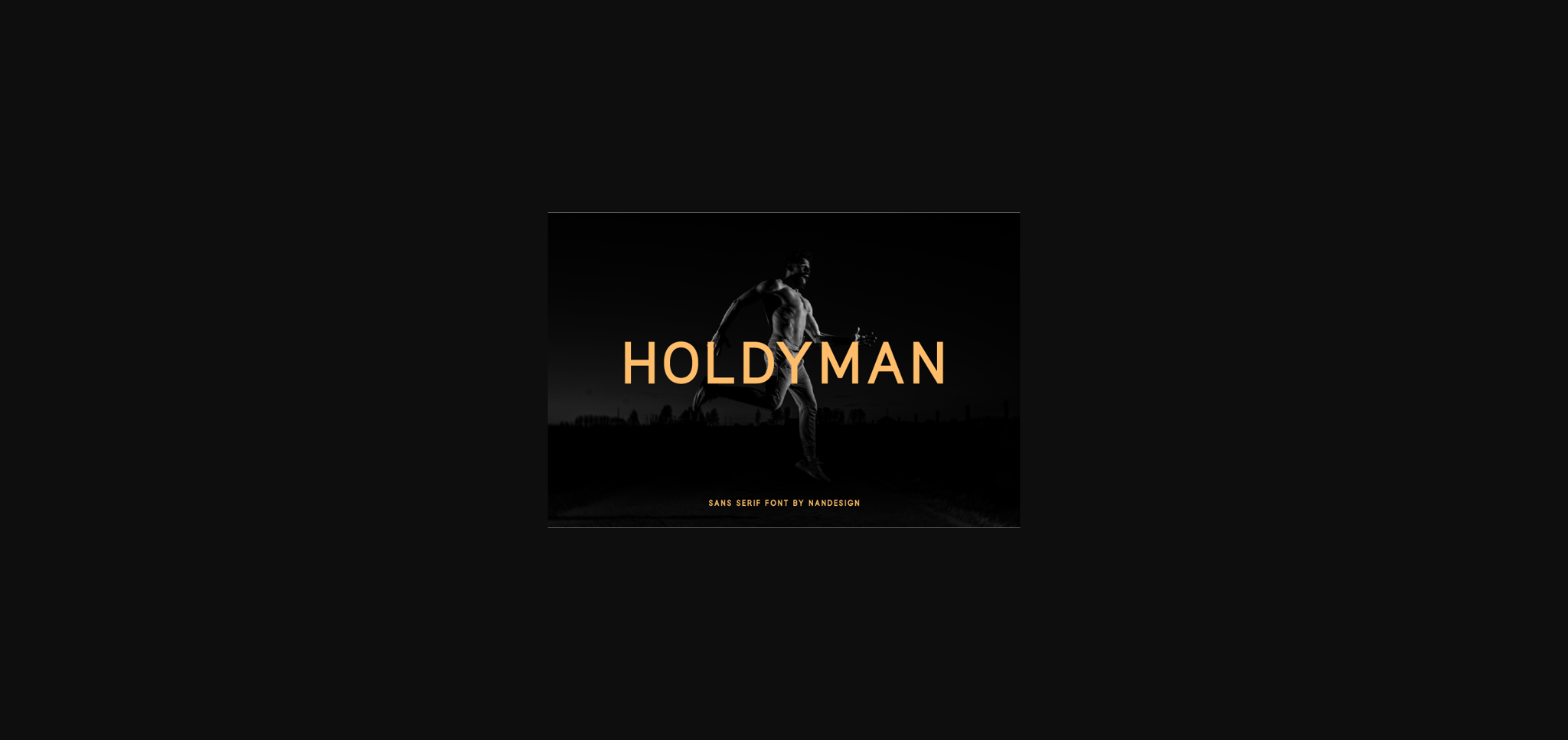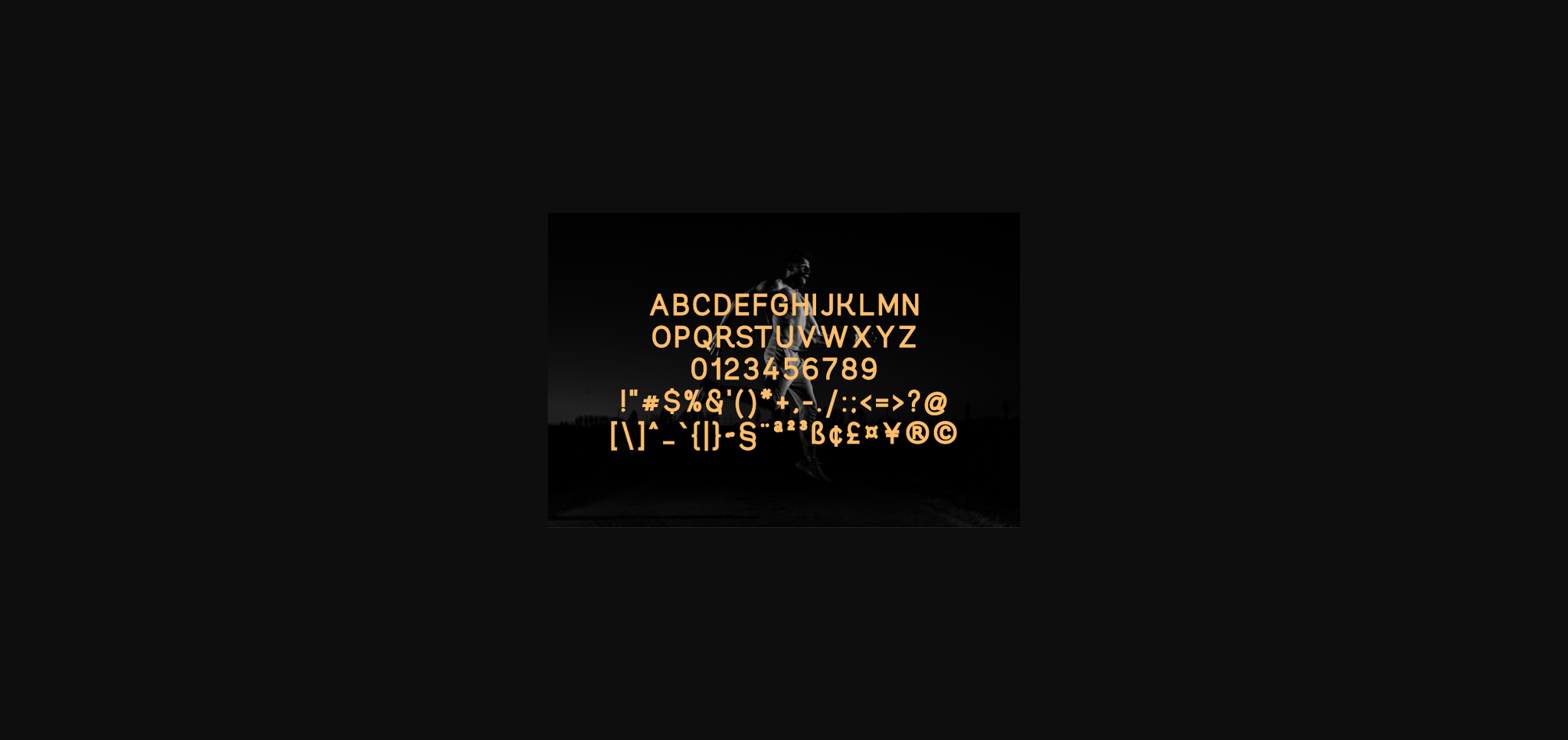
About Holdyman Font
Holdyman is a simple and elegant sans serif font with an undeniably clean feel. With its neat and beautiful arrangement of letters, this typeface will look outstanding in both formal and non-formal designs.